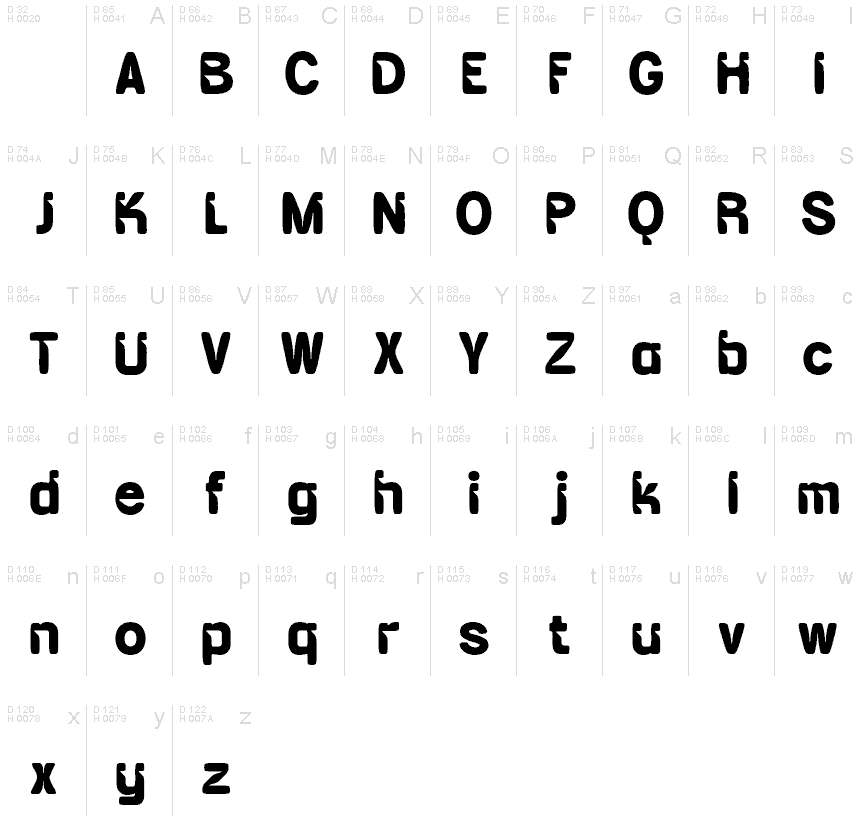
CSHelgaDrawn-Regular Demo
CS Helga Drawn font is a free display font by Craft Supply Co. It has a playful contemporary appearance with friendly & approachable vibes. The style combines rounded geometric shapes that overall make the font stand out through its modern aesthetic.